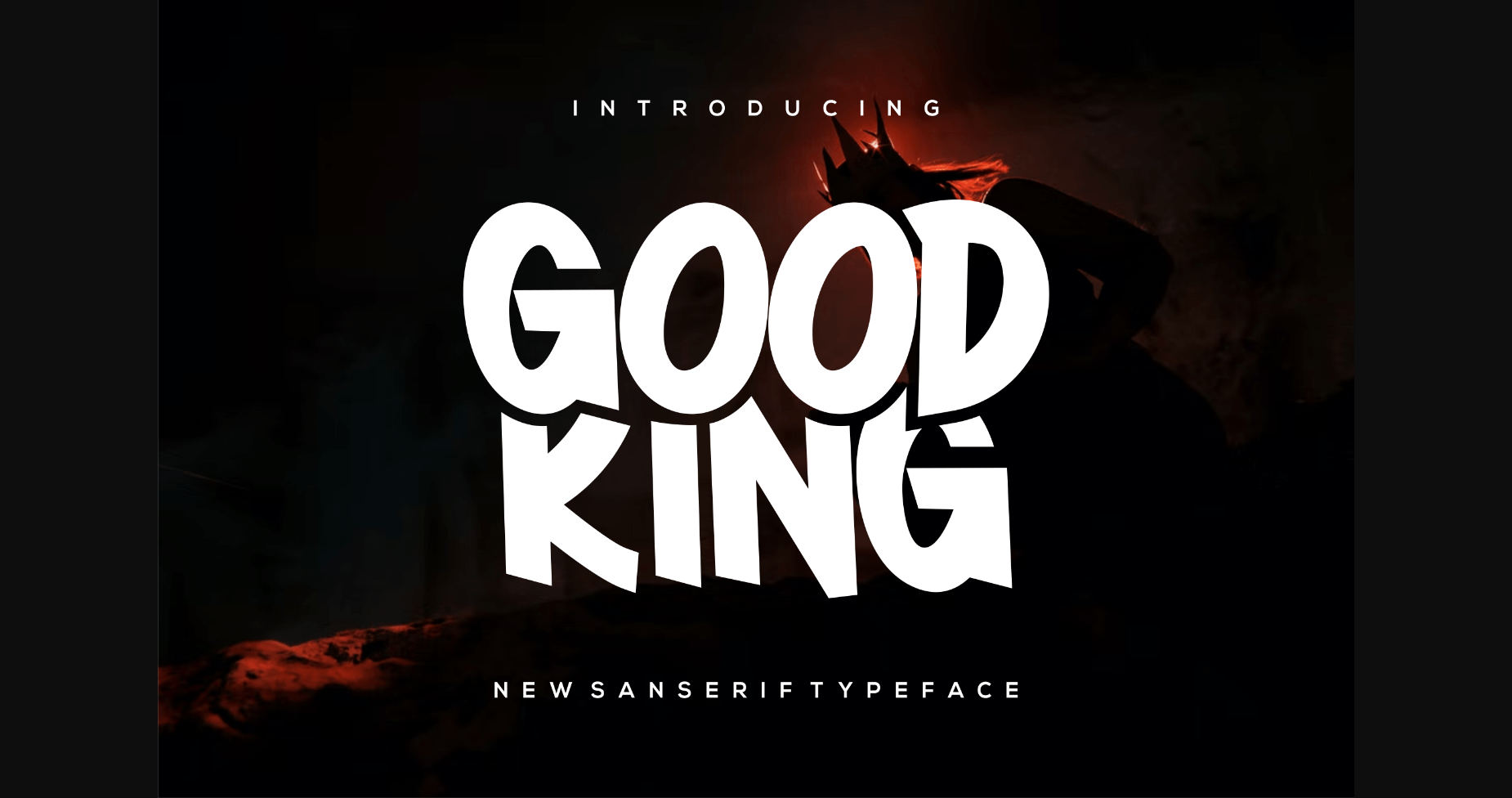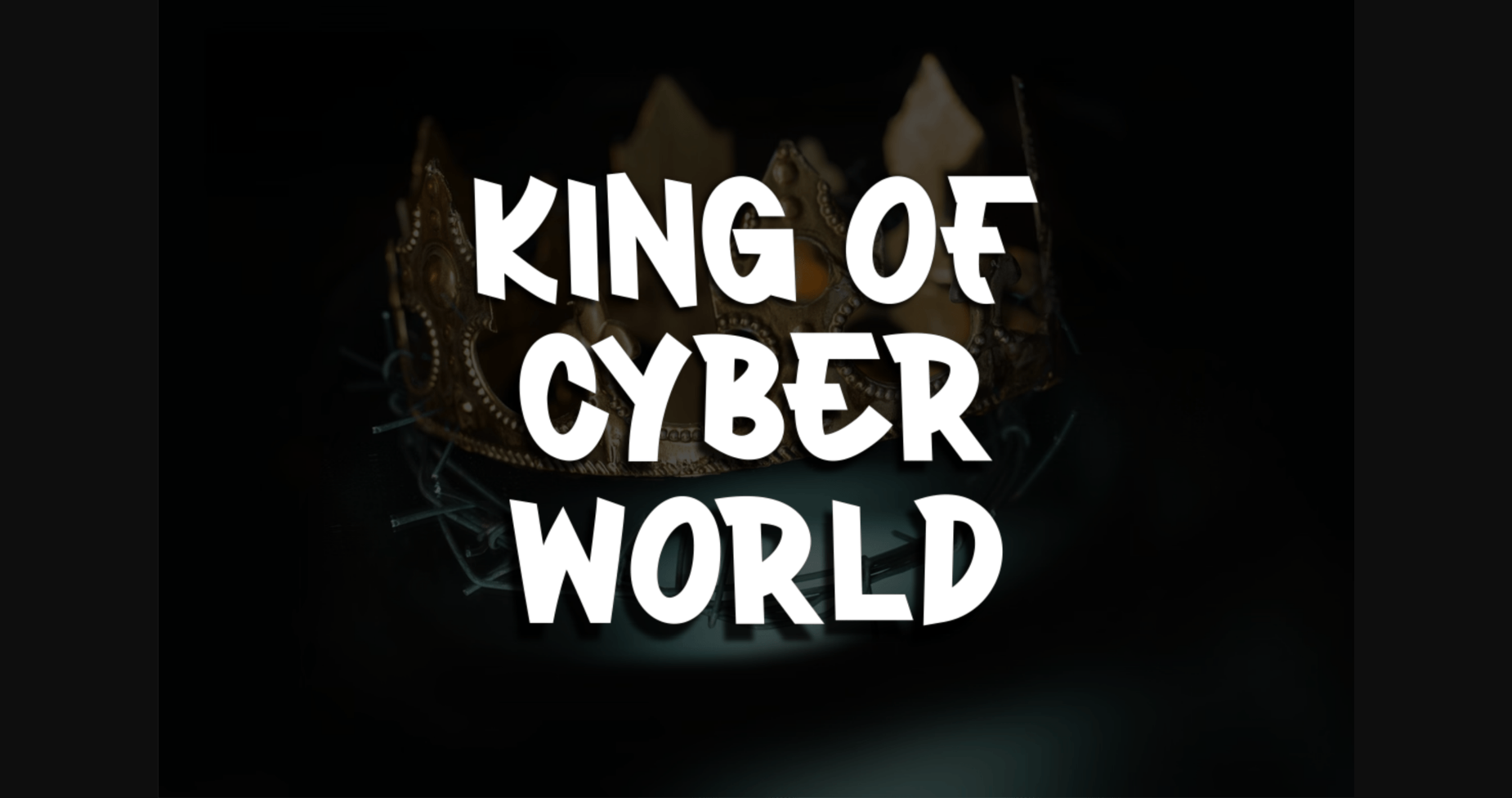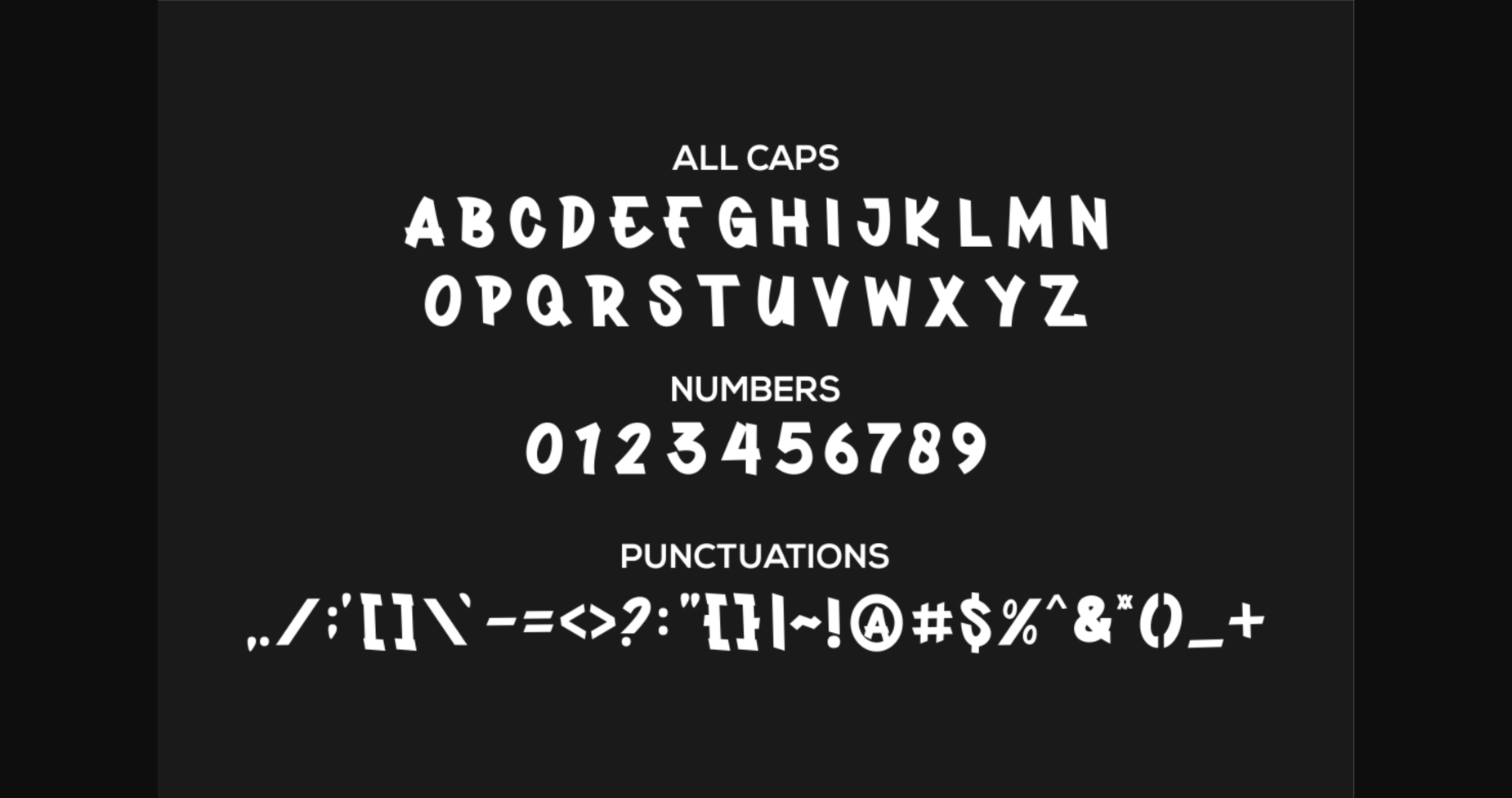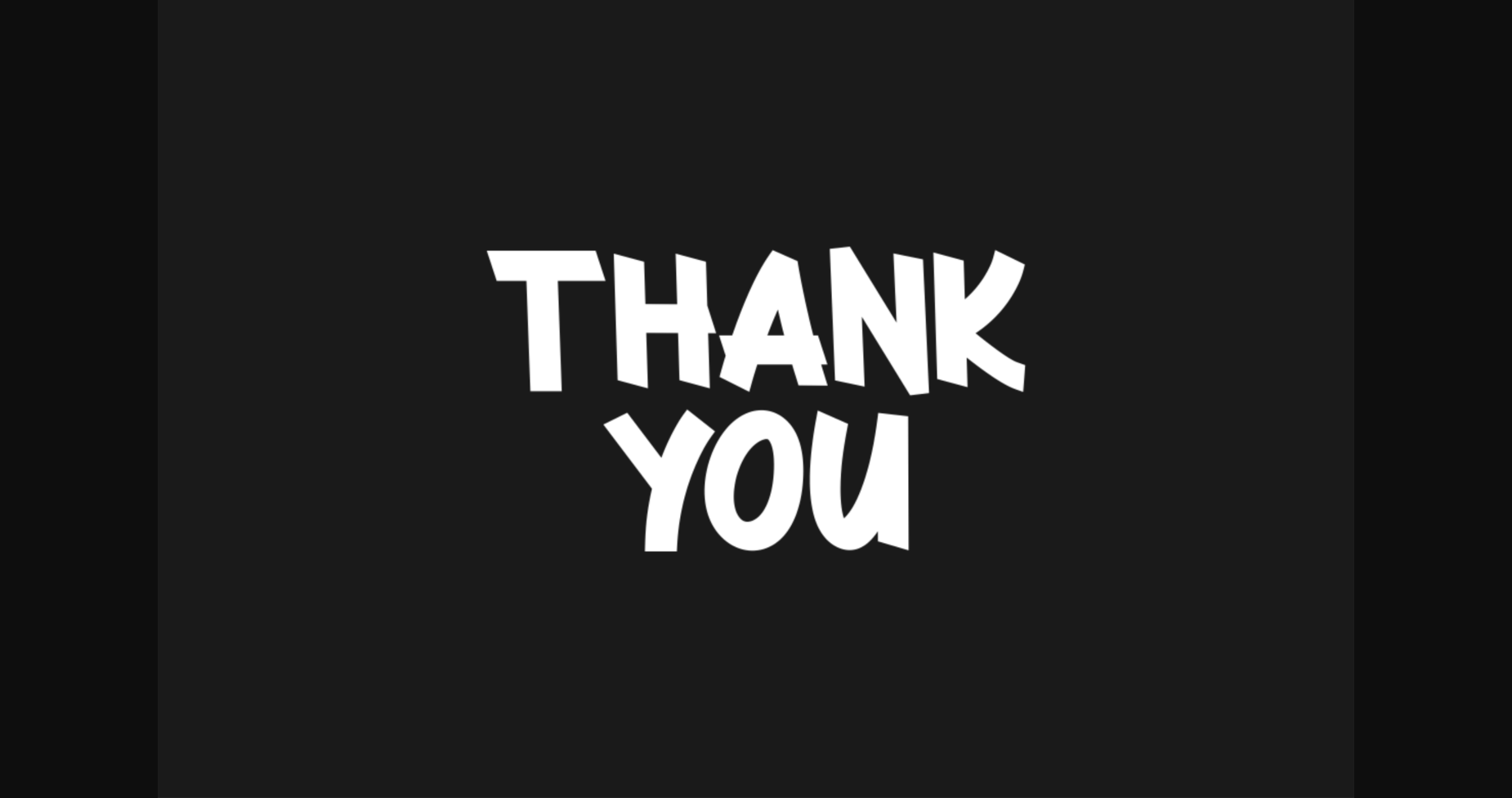
HomeSans Serif FontsGoodking Font Sans Serif Fonts Goodking Font FacebookXPinterestWhatsApp 1 of 6 ... Goodking Font Poster 2... Goodking Font Poster 3... Goodking Font Poster 4... Goodking Font Poster 5... Goodking Font Poster 6... About Goodking Font Goodking is a cool and modern sans serif font. Add it confidently to your projects and you will be amazed by the outcome generated! DOWNLOAD NOW People also explored Oneday Font Magith Font Lily & Bloom Font Queen Font There is Ghost Font Carafe Stranger of the Night Font Montreal Font Custhin Font 265 0 TagsGoodking Font Previous articleStoner FontNext articleDinopia Font LEAVE A REPLY Cancel reply Comment: Please enter your comment! Name:* Please enter your name here Email:* You have entered an incorrect email address! Please enter your email address here Website: Save my name, email, and website in this browser for the next time I comment. Personal Use Free Hello Holiday Personal Use Free Read more about this font Zalitta Personal Use Free Read more about this font Knucklehead Personal Use Free Read more about this font Mullia Personal Use Free Read more about this font BLOG Top 10 Handwritten Fonts That Elevate Your Designs Top 10 Handwritten Fonts That Will Elevate Your Designs Handwritten fonts bring a warm, personal touch to every creative project. Whether you're designing logos, invitations,... Modern Sans-Serif Fonts That Brands Love in 2025 Free Fonts Risk: Why Free Fonts Can Be Dangerous for Designers Exploring Font Trends